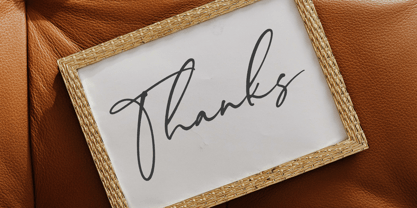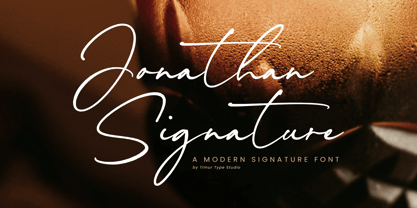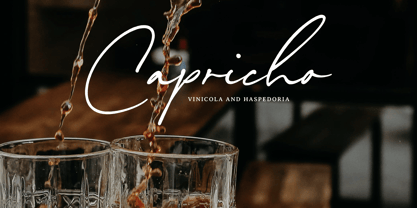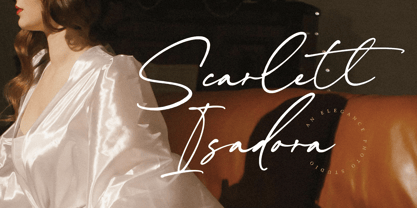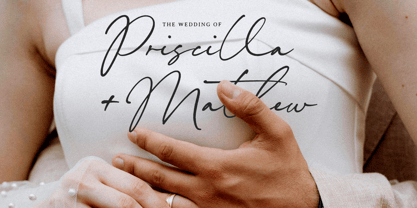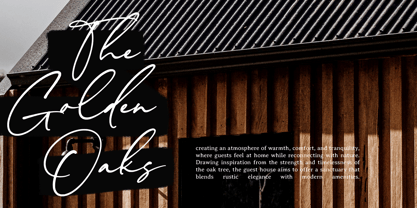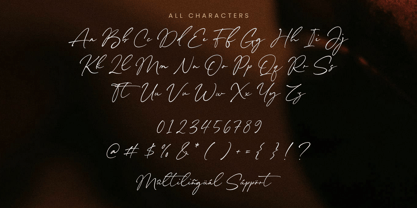
Jonathan Signature
by Timurtype
The Jonathan Signature Font Family was designed by Wara Sigit Tri Pamungkas and published by Timurtype. Jonathan Signature contains 1 styles.
Introduced by Timurtype Studio!
Jonathan Signature is a Modern Signature Font
This font is a sleek and elegant modern signature font that blends fluid, cursive strokes with a contemporary twist. Perfect for creating a sophisticated touch, it embodies a handwritten style with smooth, flowing lines that make it ideal for logos, invitations, and branding materials. Its refined yet casual appearance makes it versatile for both formal and creative uses.
Jonathan Signature Font also supports multilingualism